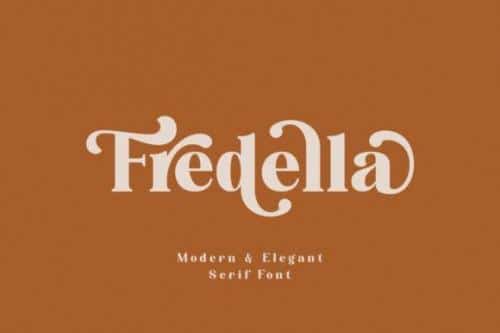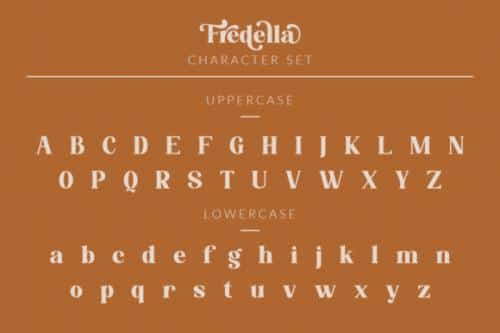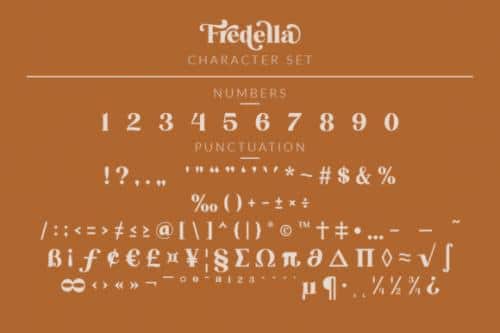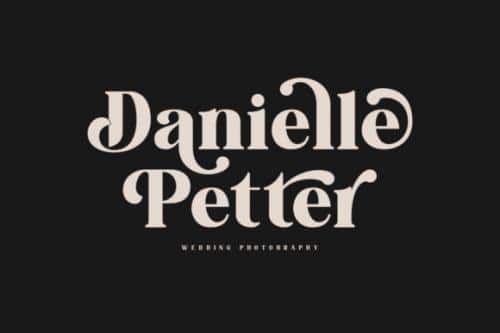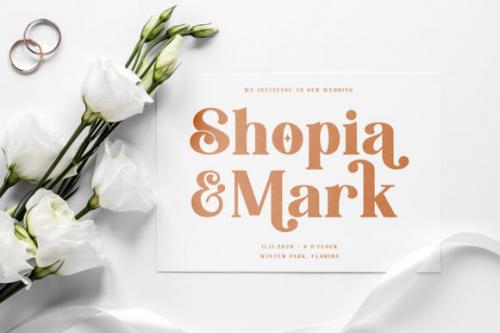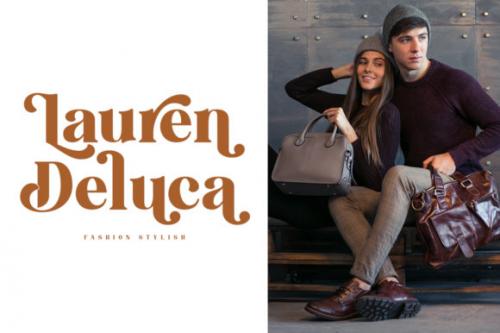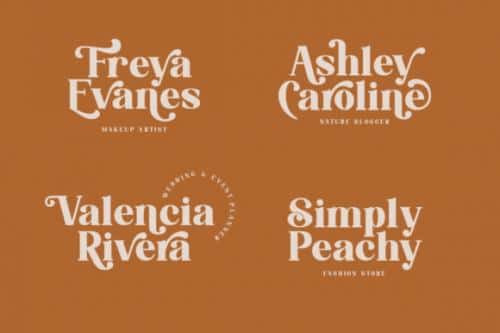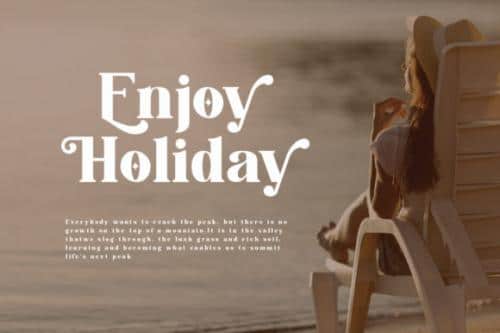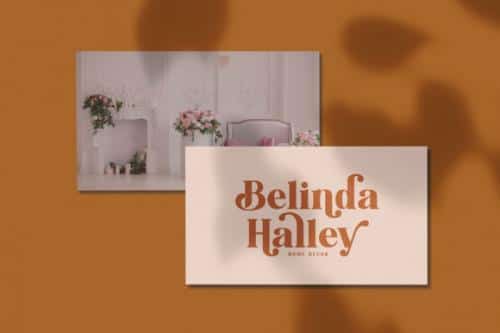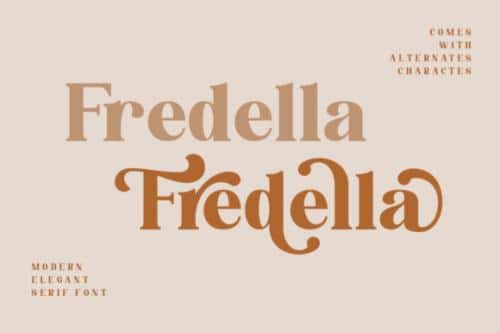
Fredella Elegant Serif Font
Fredella is a classic and elegant serif font. It features great alternates and swashes, that will make your designs standout. or logo even more stunning and stand out! This font is PUA encoded which means you can access all of the great glyphs and swashes with ease! It also features a wealth of special features including alternate glyphs and ligatures.